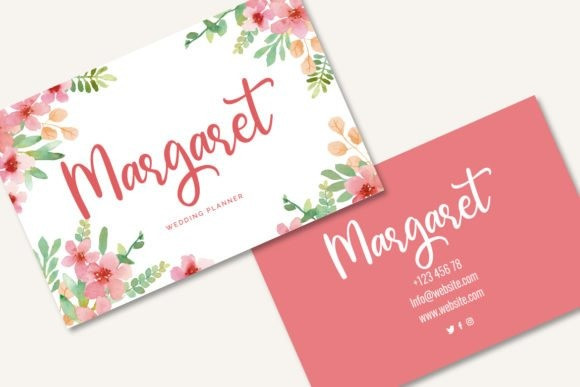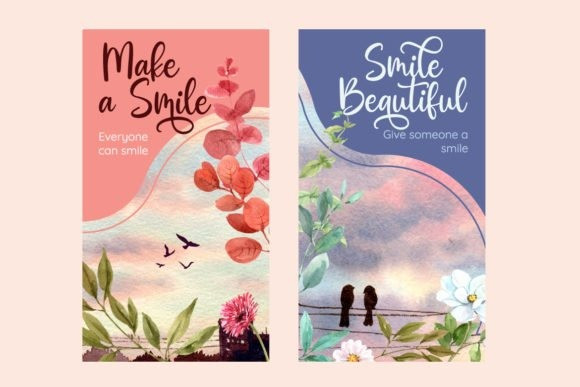
Mercia Script Font
Mercia is a vintage styled, paint brushed script font created for packaging products, invitation cards, flyers, mockups, event posters, and anything else that requires high-quality vibes. It has a beautiful and balanced character, that fits well with the large design pool.